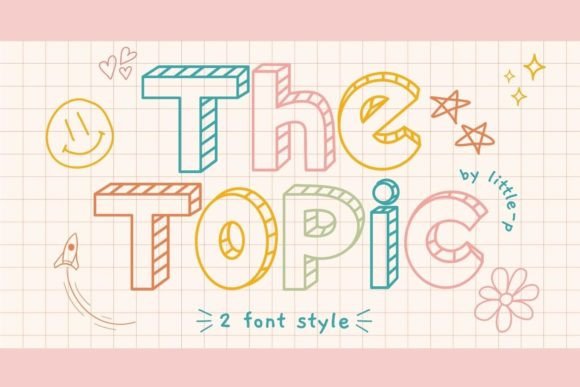
Welcome to the wondrous world of "The Topic," the font that will unveil a realm of creativity and learning for your little ones. This exceptional display font, crafted by the talented Issie_Studio, is a visual symphony designed to ignite imagination and bring joy to any writing project.
Immerse yourself in a world of whimsy and wonder as The Topic transforms ordinary words into vibrant, eye-catching expressions. Its playful and funny appeal dances across the page, captivating attention and sparking creativity in young minds. With The Topic, educational materials, storybooks, and art projects come alive, inviting children to embark on enchanting adventures through the written word.
The Topic's vibrant personality shines through its lively and engaging style, making reading and learning an enjoyable and immersive experience. Each letter, meticulously crafted with a playful touch, captivates the imagination, turning simple words into magical expressions. With The Topic, storytelling becomes an interactive journey, as children eagerly follow the whimsical dance of each character.
Unleash the boundless potential of The Topic and create visually captivating designs that resonate with the vibrant energy of childhood. Whether it's a captivating poster, an educational worksheet, or a heartfelt greeting card, The Topic adds a touch of magic that transforms the ordinary into the extraordinary. With its playful spirit and captivating charm, The Topic empowers you to create designs that leave a lasting impression, inspiring young minds to dream big and explore the boundless realms of their imagination.